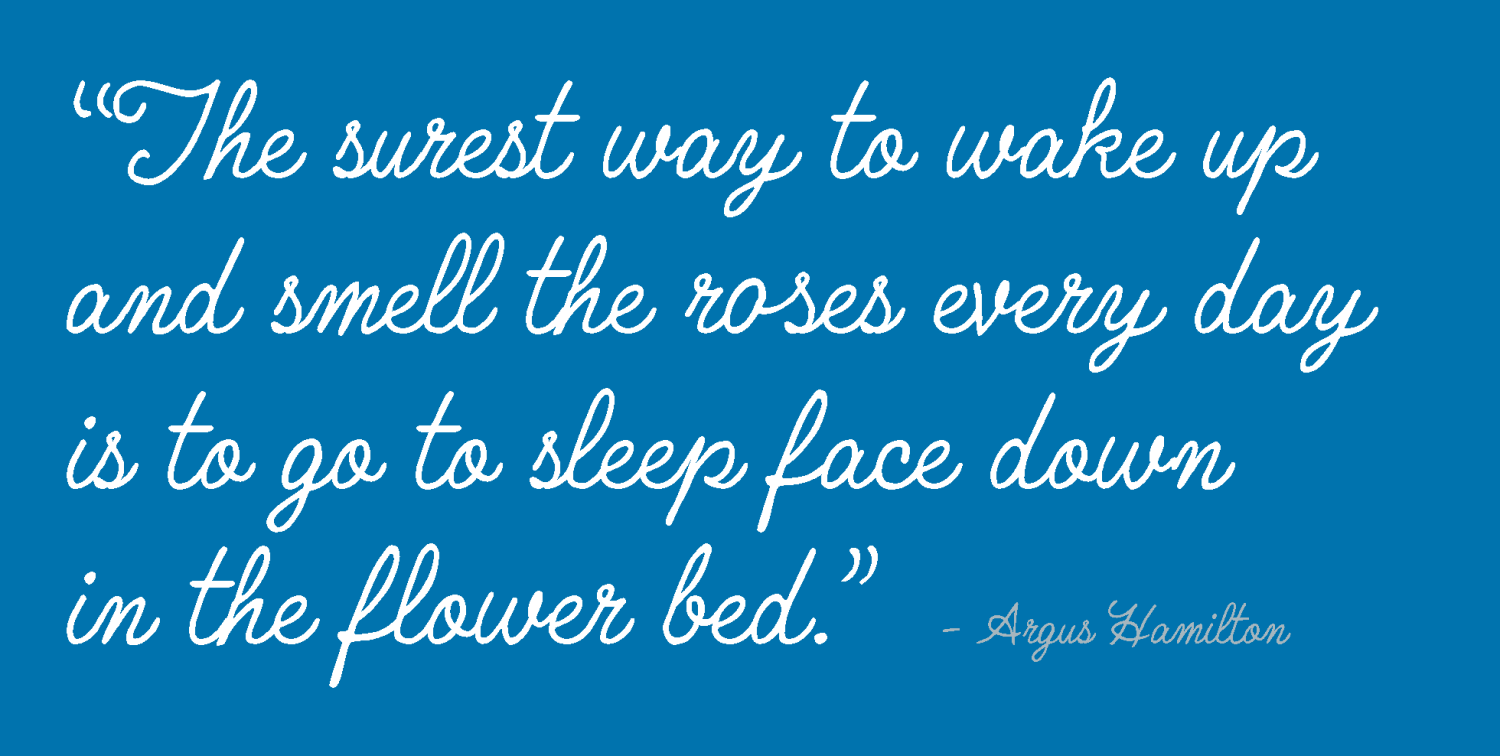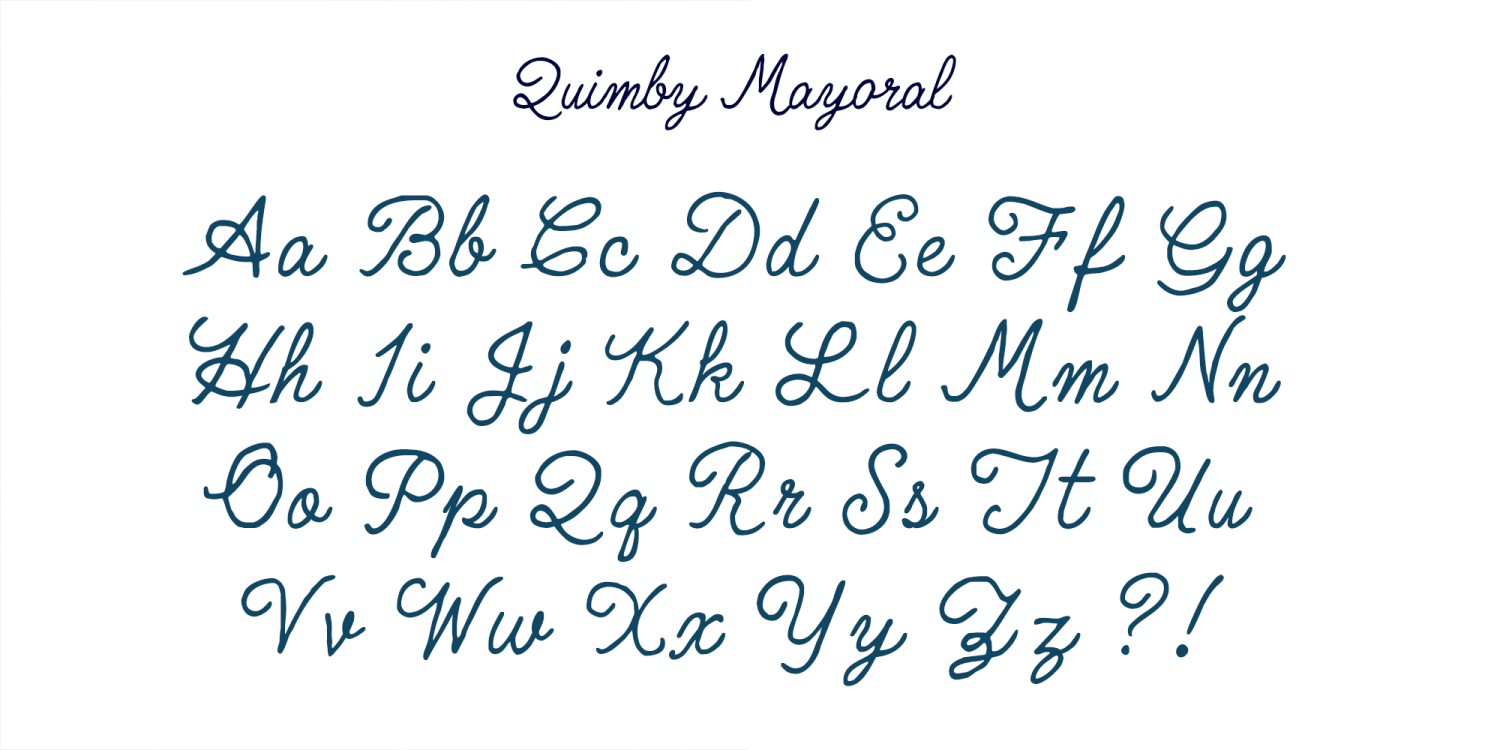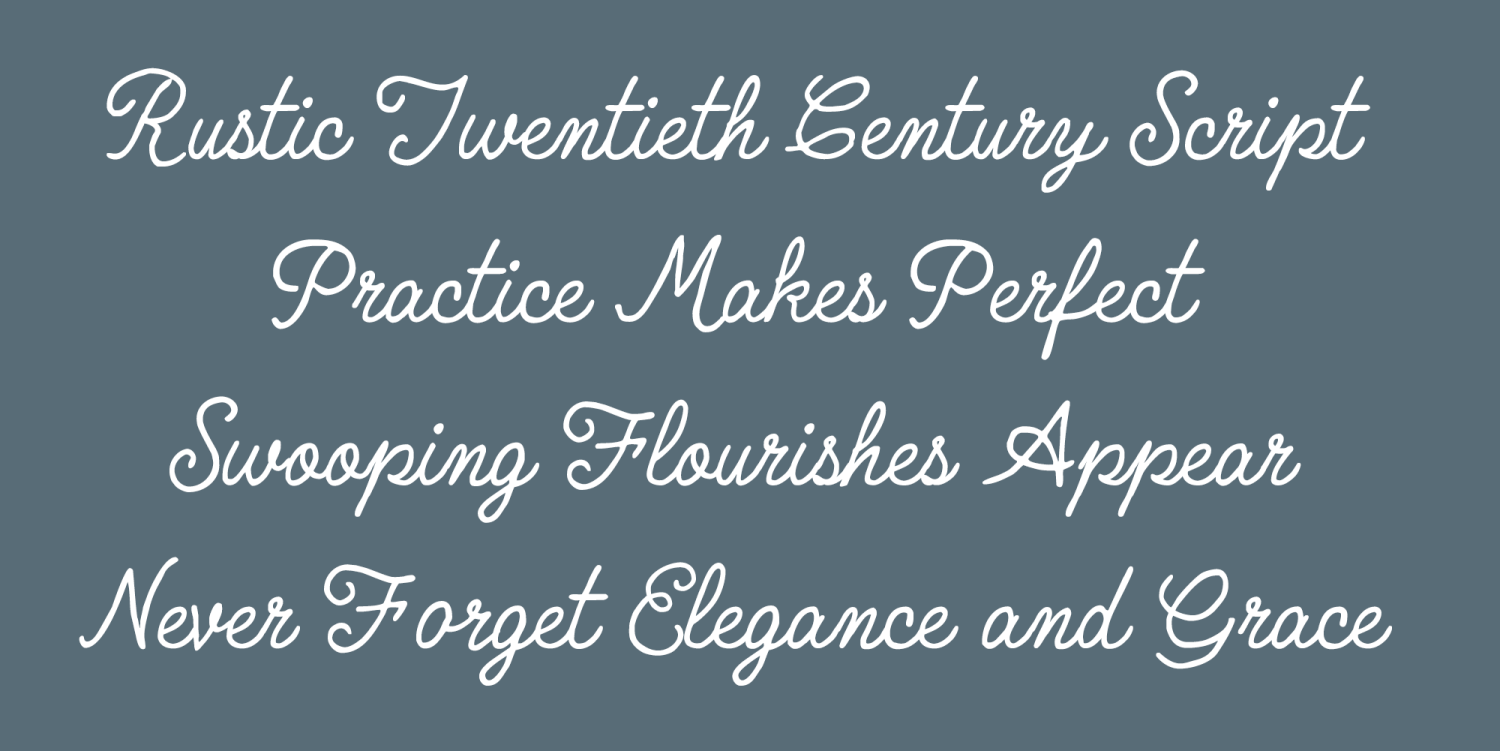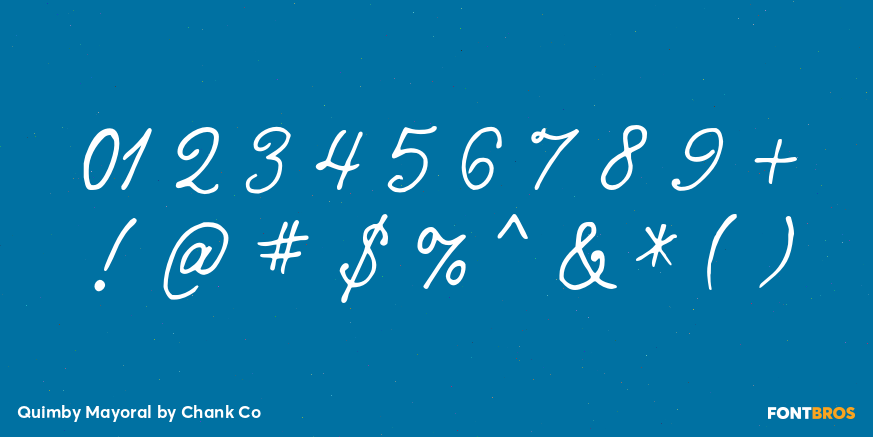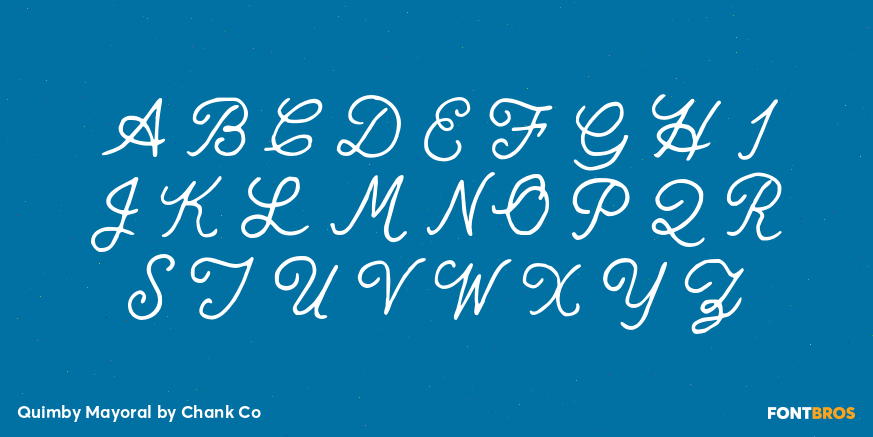
Quimby Mayoral
Font Family by Chank Co
Surprised by the success of his clumsy cursive font Yellabelly, Chank created a cleaner script that is loopy and elegant, but still has a natural hand-drawn character. In all caps, Quimby Mayoral looks like someone dropped a bowl of spaghetti. But when you mix the upper and lowercase letters, you get some pretty fancy effects. Chank named the font after the mayor of Springfield.